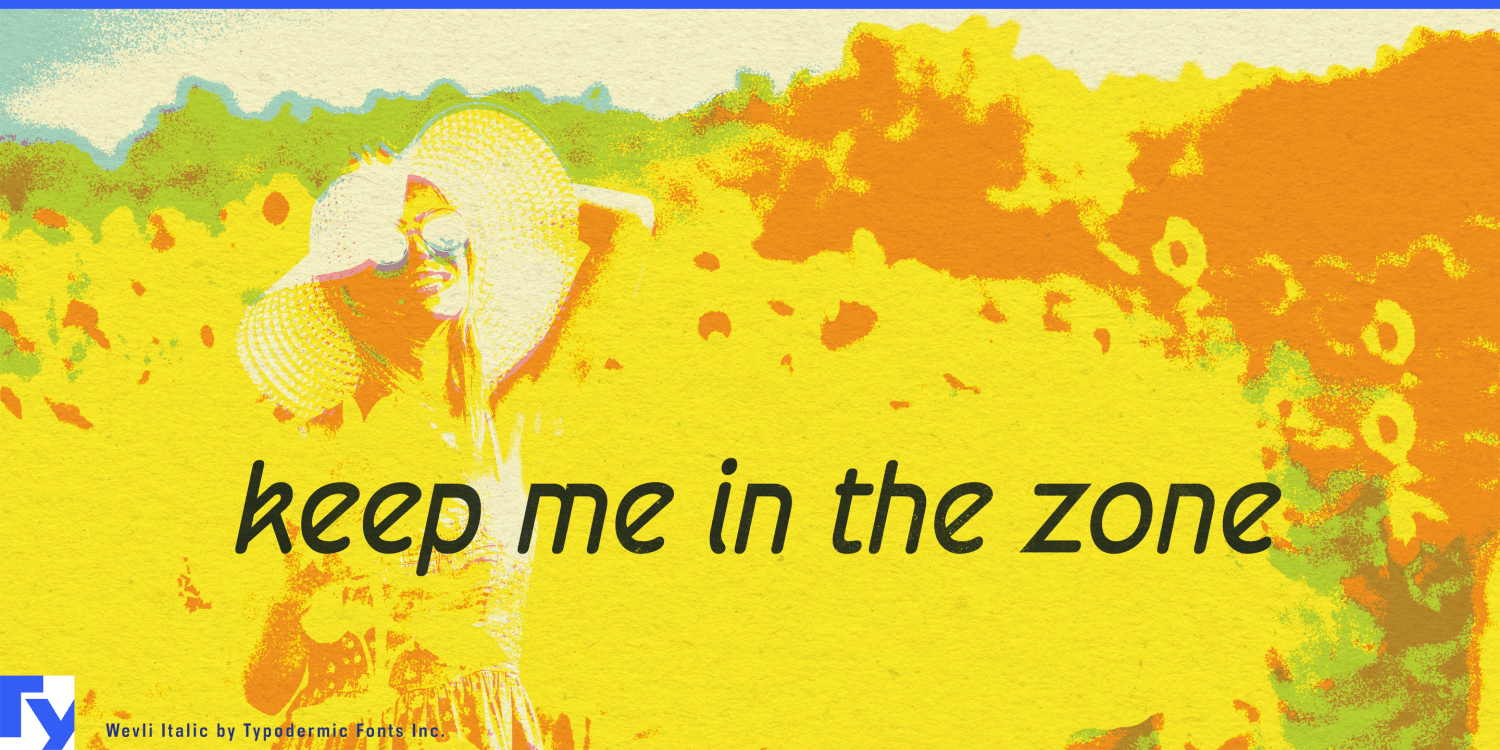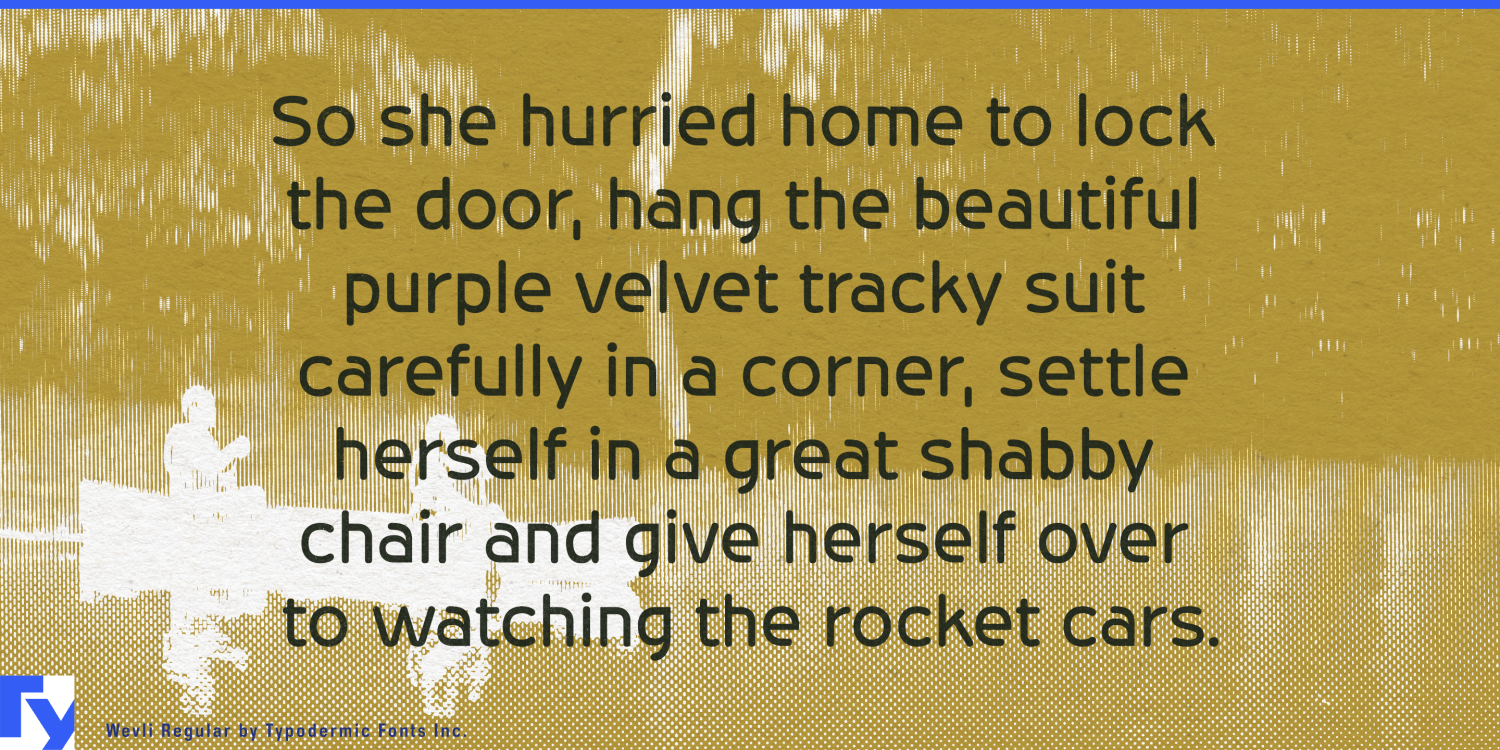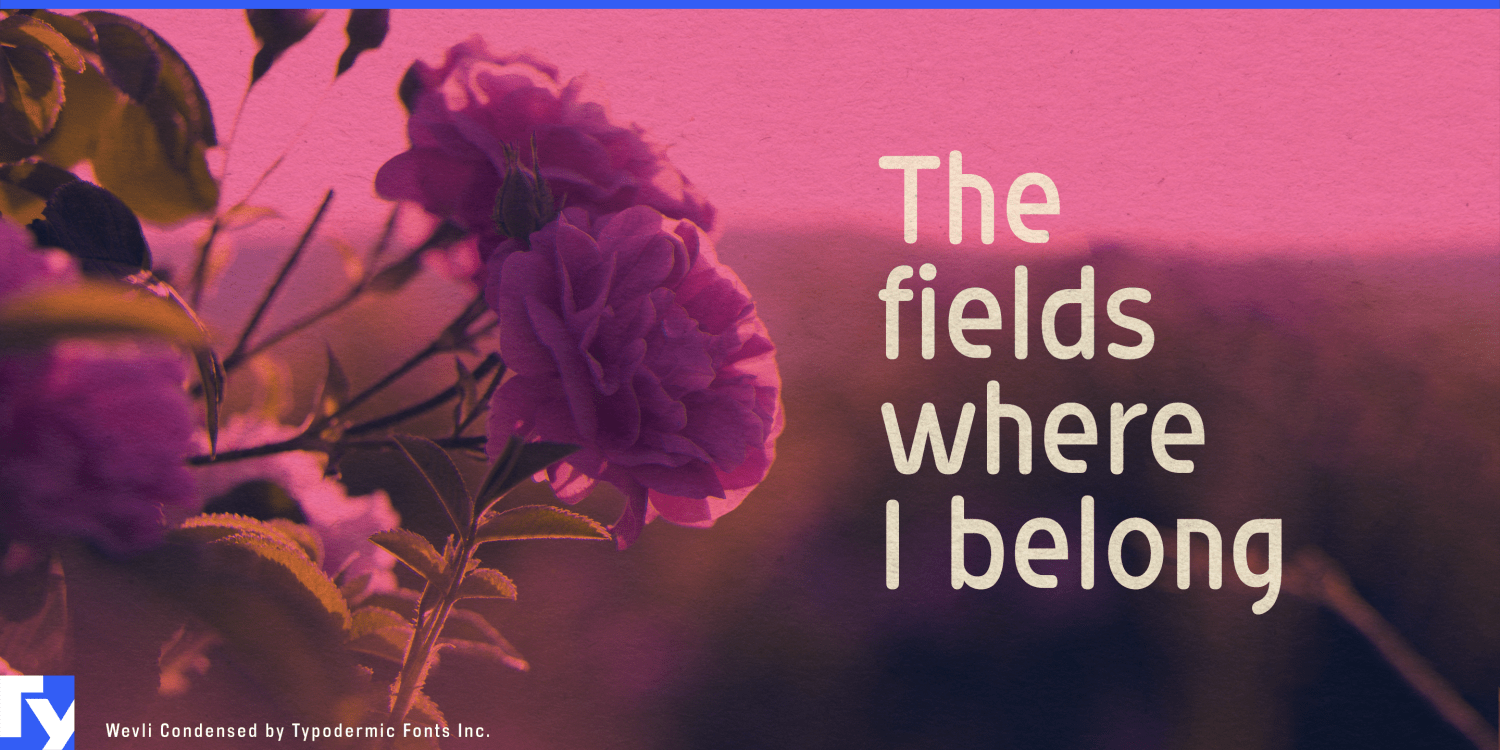
Wevli: a typeface that transcends earthly design boundaries, as if beamed down from an advanced alien civilization. This otherworldly font family transmits ideas across the vast expanse of creative space with unparalleled clarity and style. Imagine glyphs…